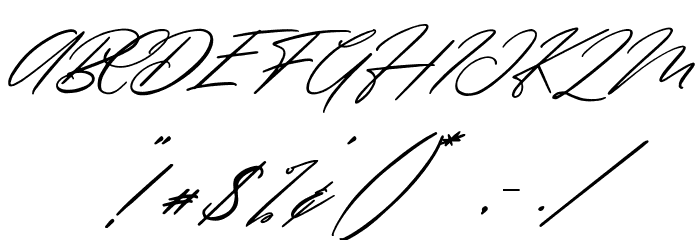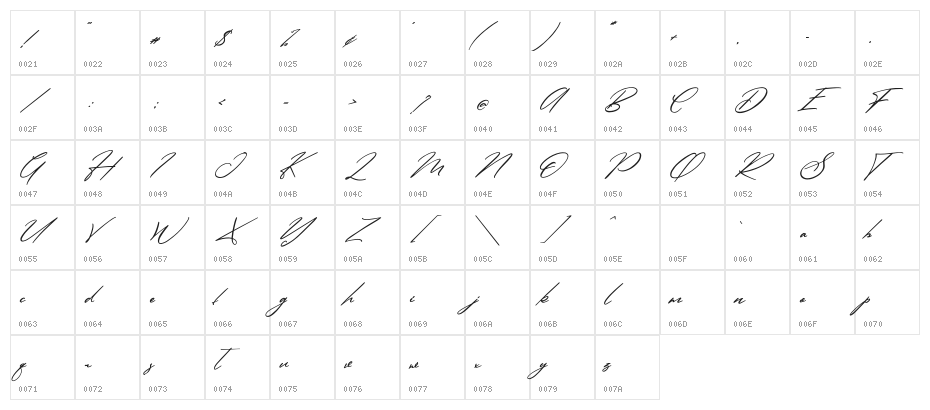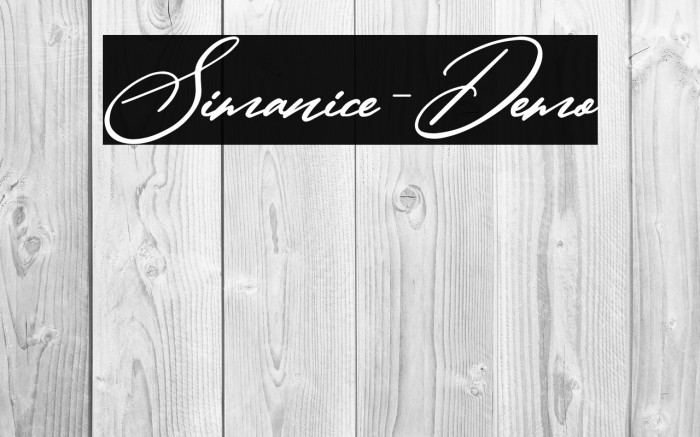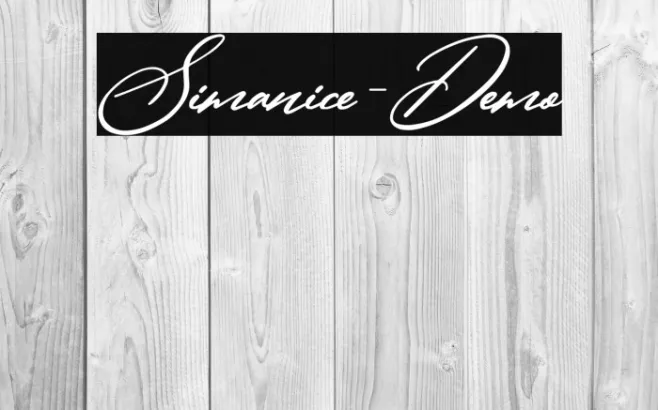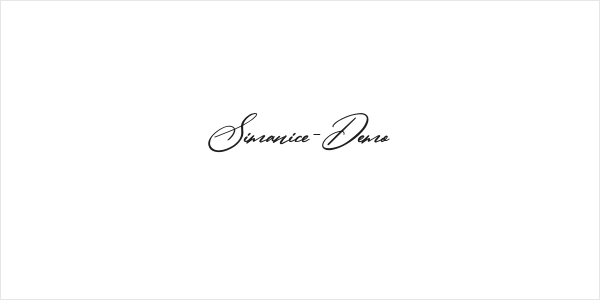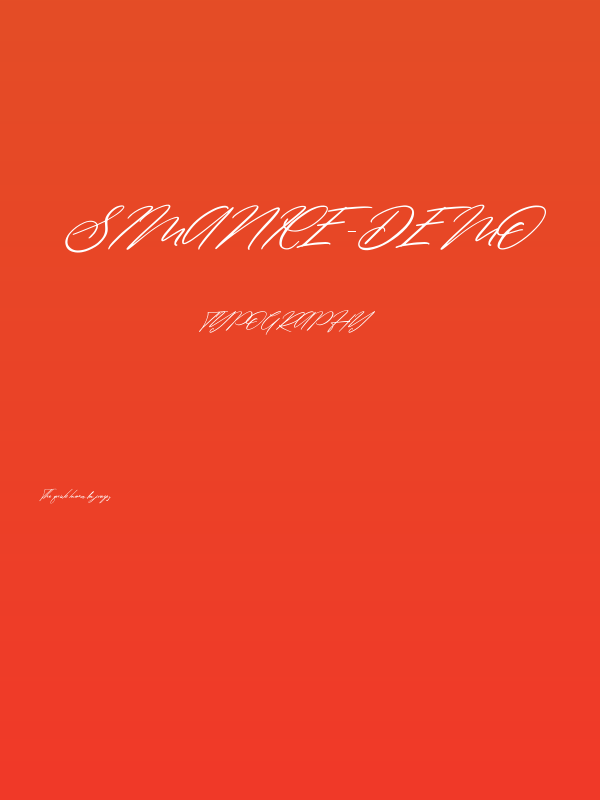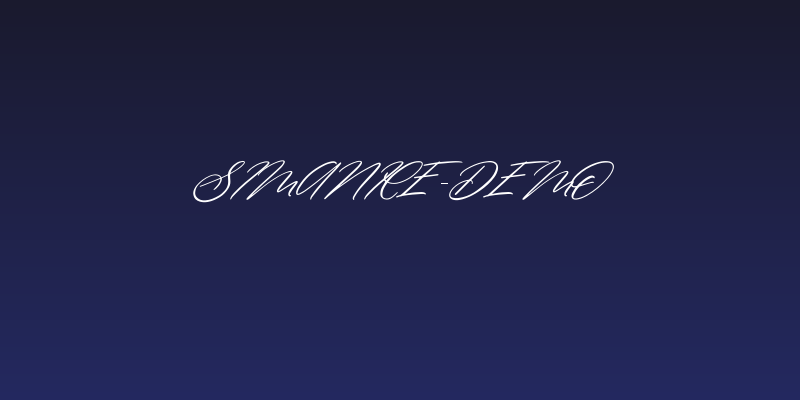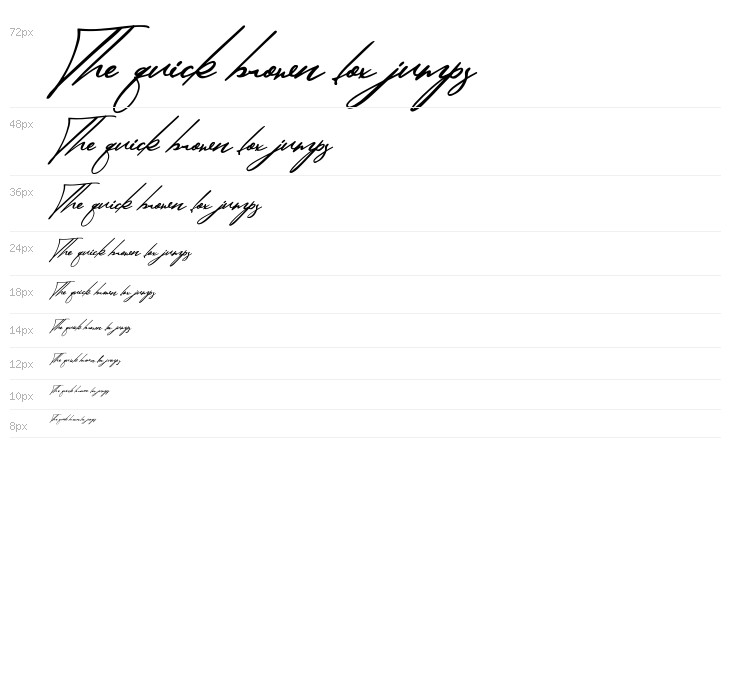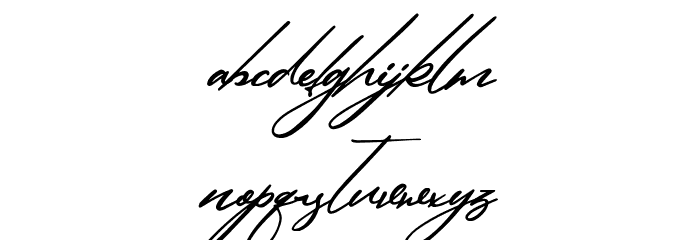
Simanice-Demo Font
Simanice-Demo Description
This font exudes a sophisticated and elegant style, characterized by its fluid, cursive script that mimics the natural flow of handwriting. The letters are connected with smooth, sweeping strokes, giving it a dynamic and graceful appearance. The uppercase letters are particularly ornate, with flourishes that add a touch of drama and flair. The lowercase letters maintain a consistent style, with a slightly more restrained design that complements the uppercase. The numbers and special characters are designed with the same attention to detail, ensuring a cohesive look across all elements. This font is perfect for projects that require a personal, artistic touch, such as invitations, greeting cards, or branding materials.
Overall StyleElegant
Use CaseLogos, Invitations, Artistic projects
Proposed ProjectsIdeal for wedding invitations, personal branding, artistic projects, and elegant stationery.